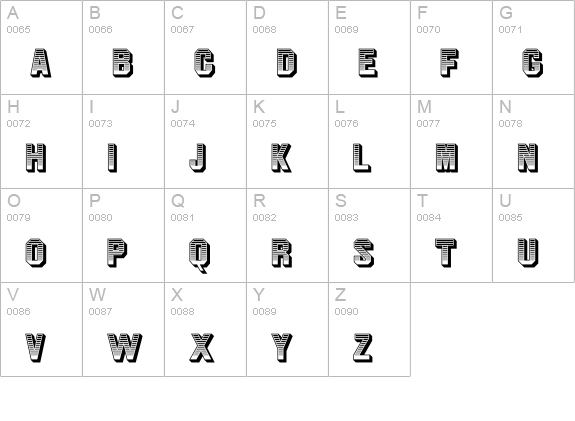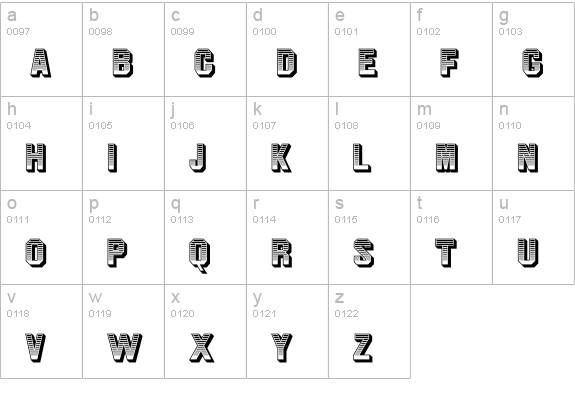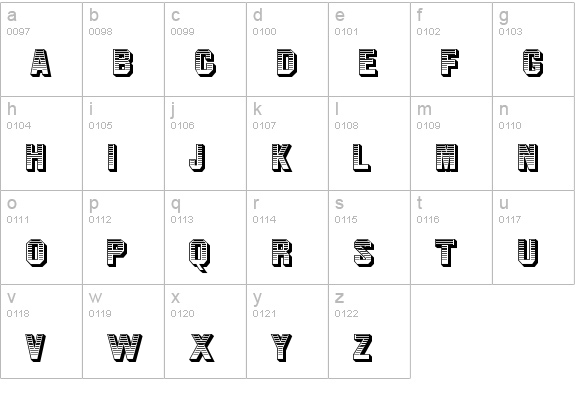
Jim Dandy Font Details
Jim Dandy font is a charming and playful typeface that exudes a sense of whimsy and fun. With its bold lines and quirky curves, this font is perfect for adding a touch of personality to any design project. Whether you're creating posters, invitations, or social media graphics, Jim Dandy font is sure to make a statement. The best part? Jim Dandy font is completely free to download at FontsMarket.com. You can easily add this unique font to your collection and start using it in your projects right away. So why wait? Download Jim Dandy font today and let your creativity soar!